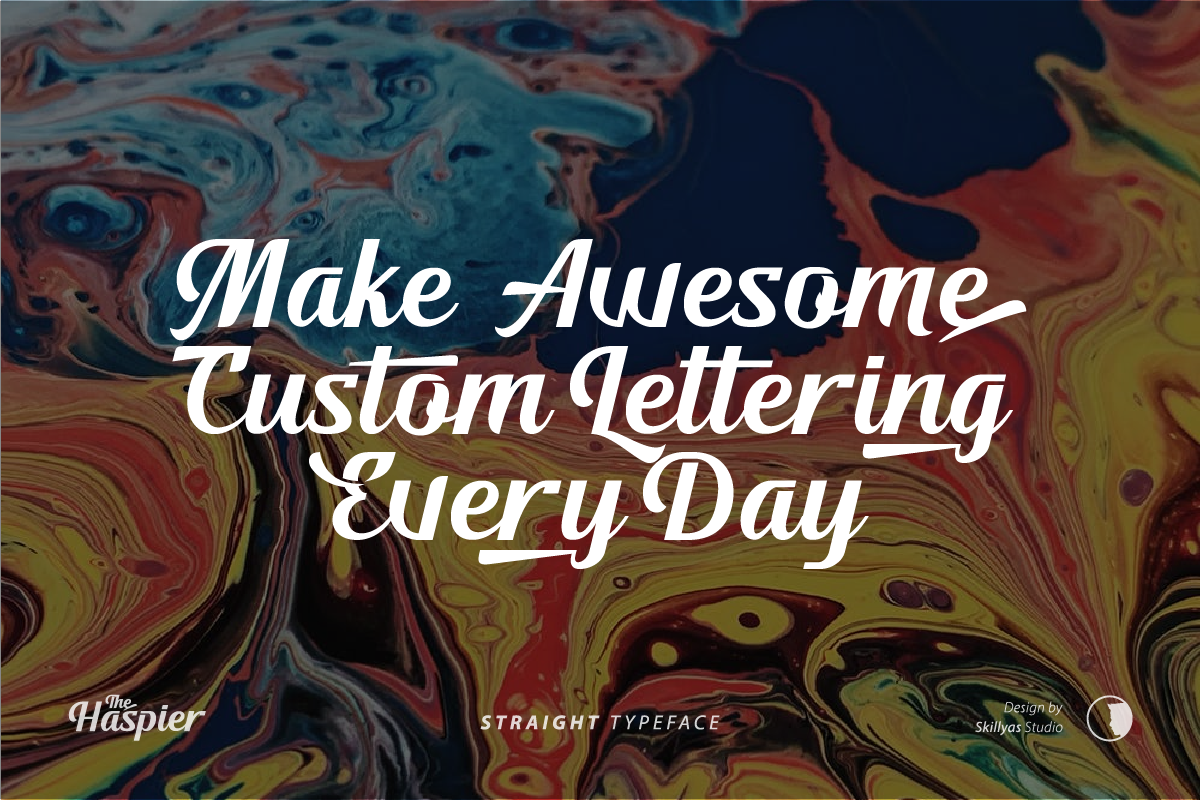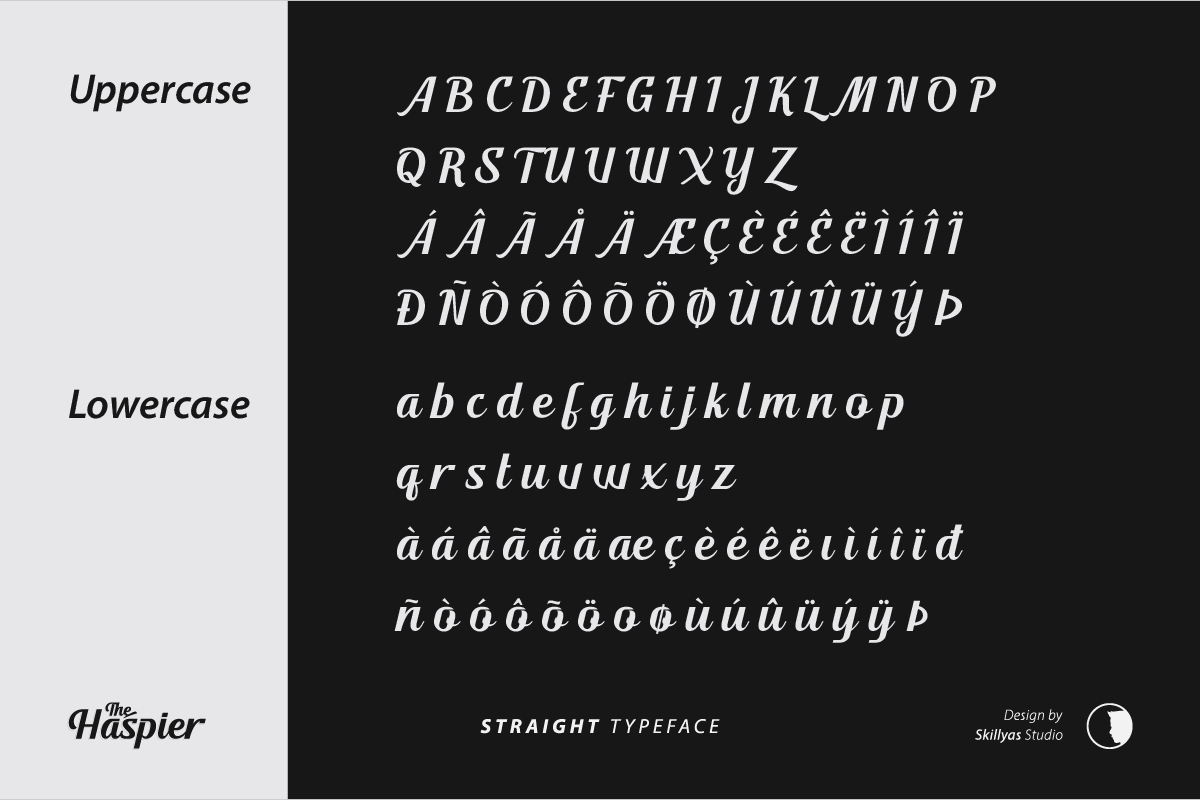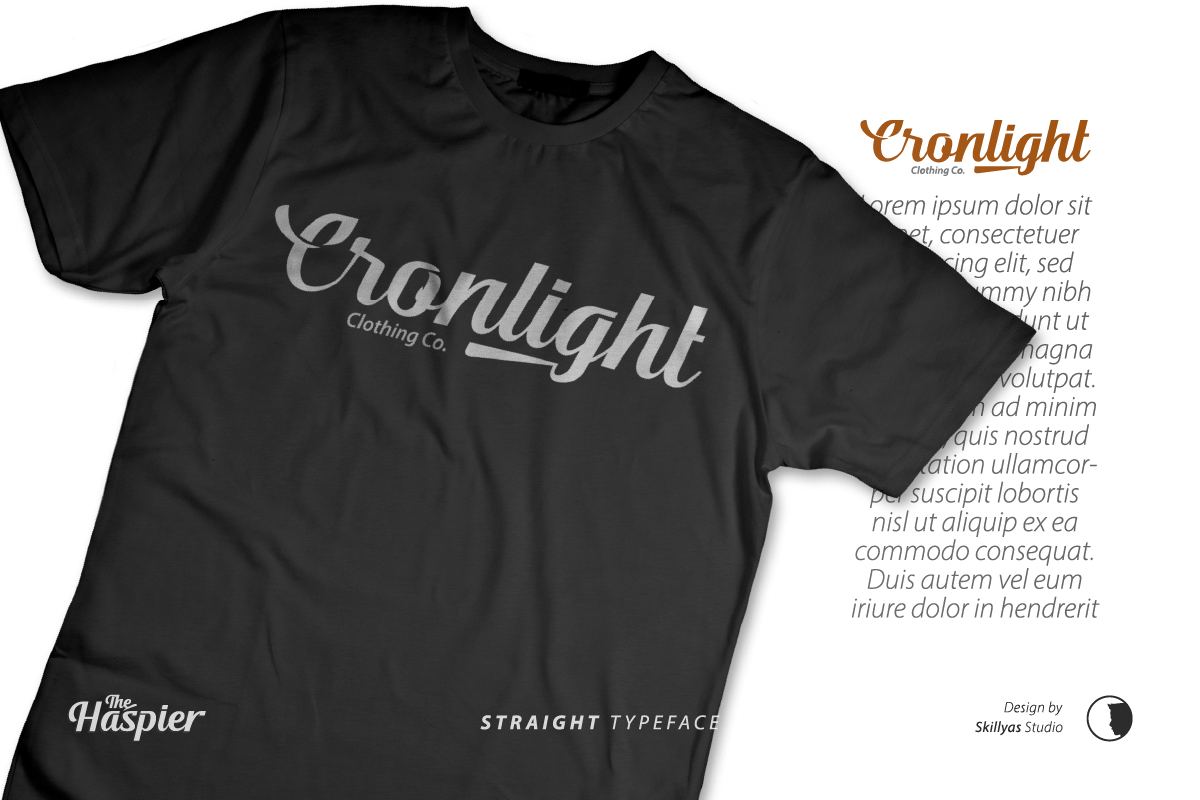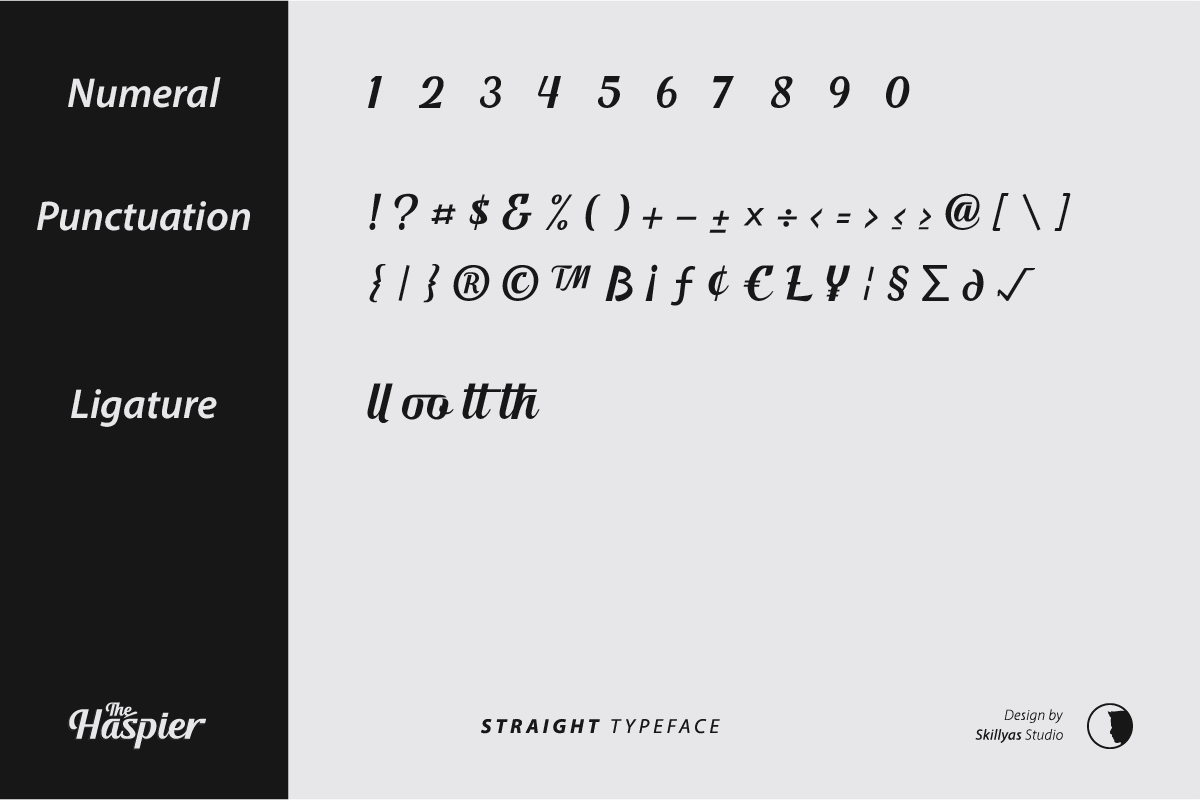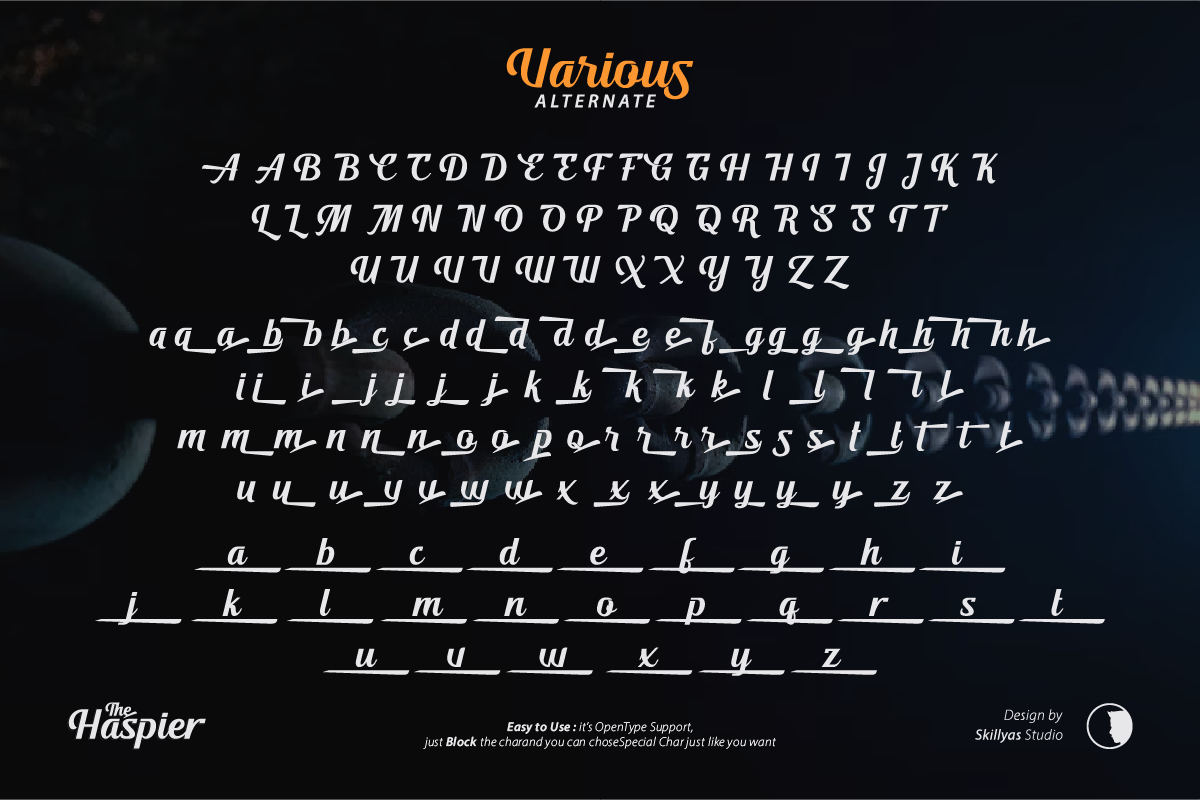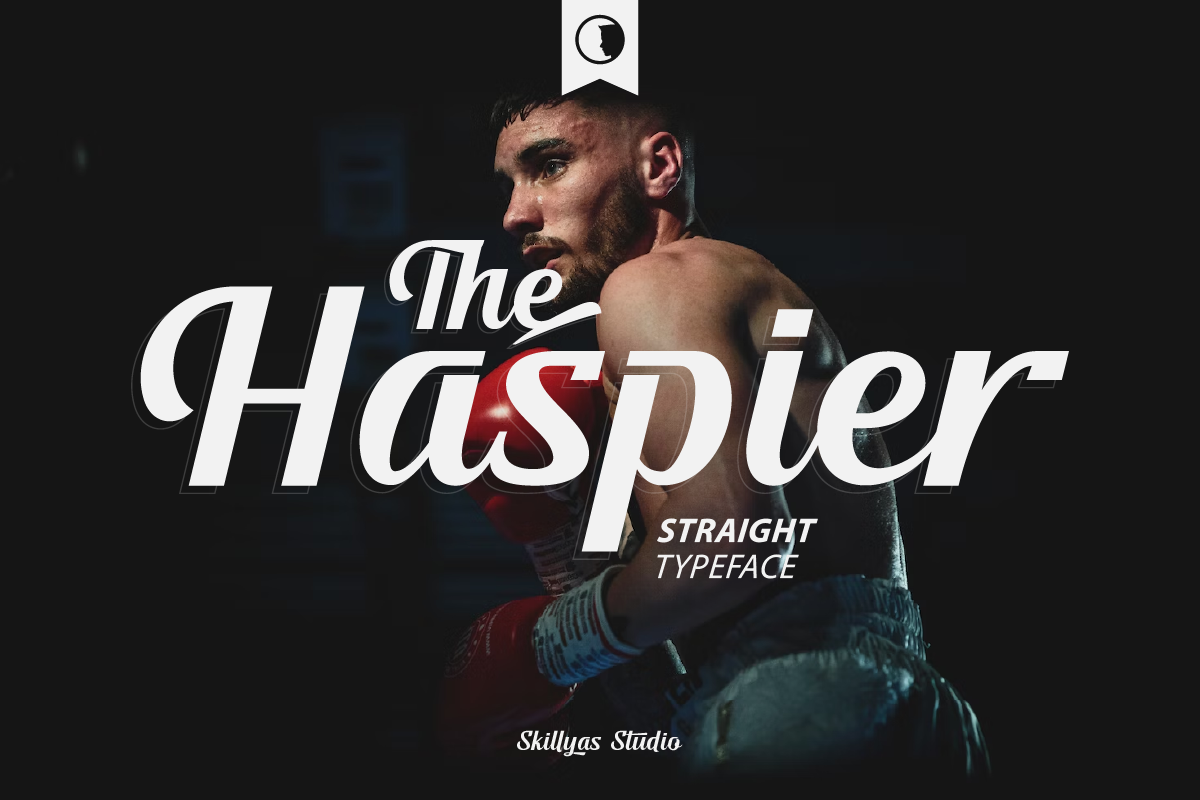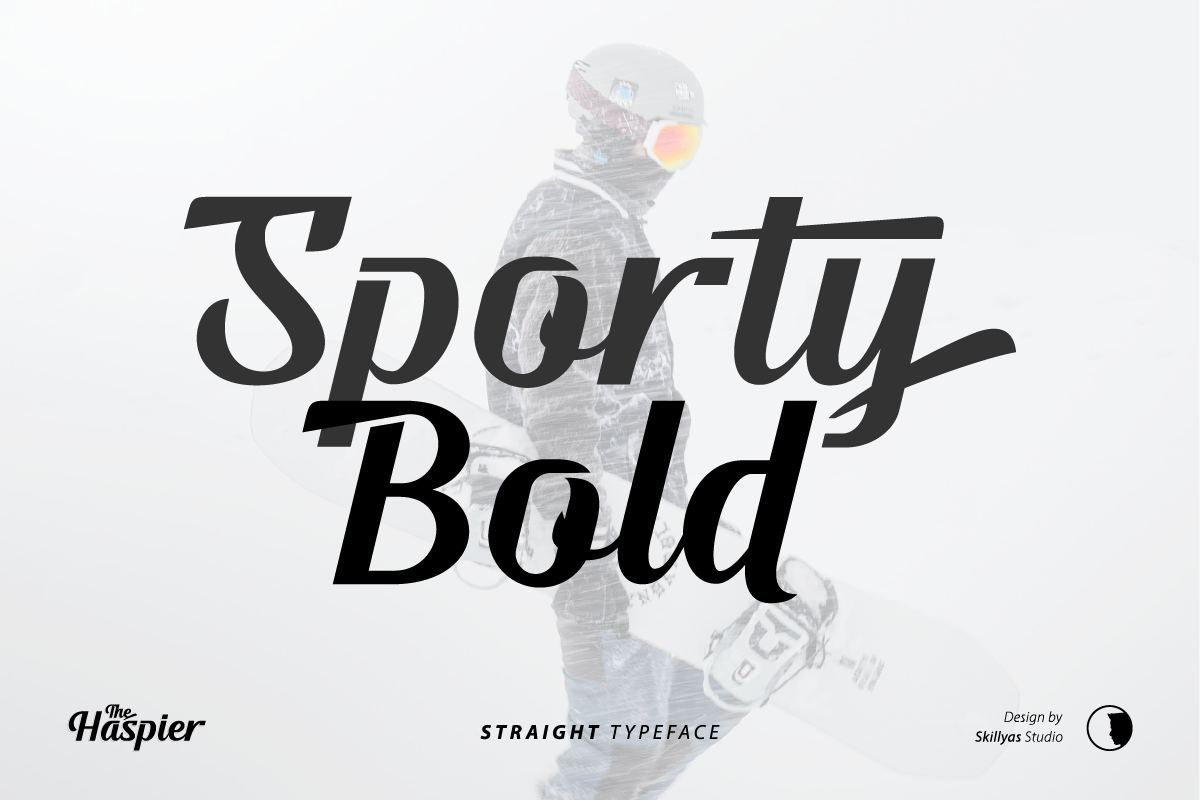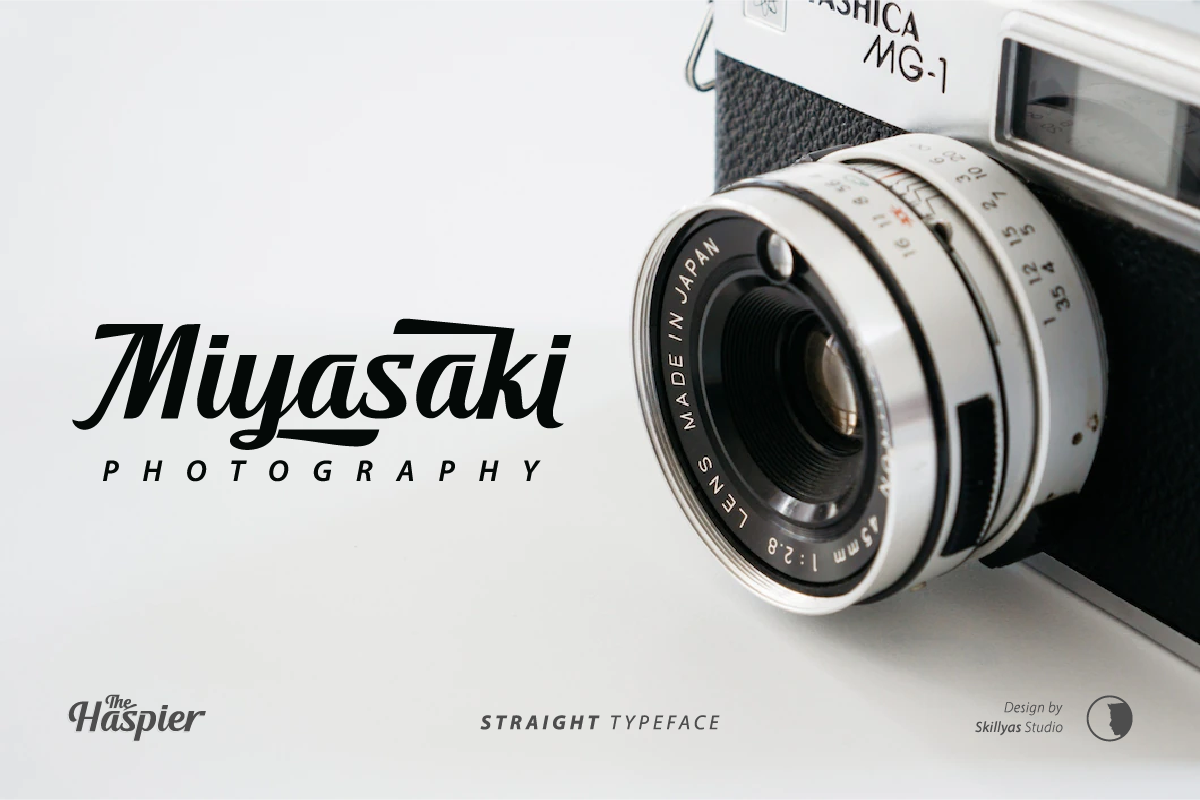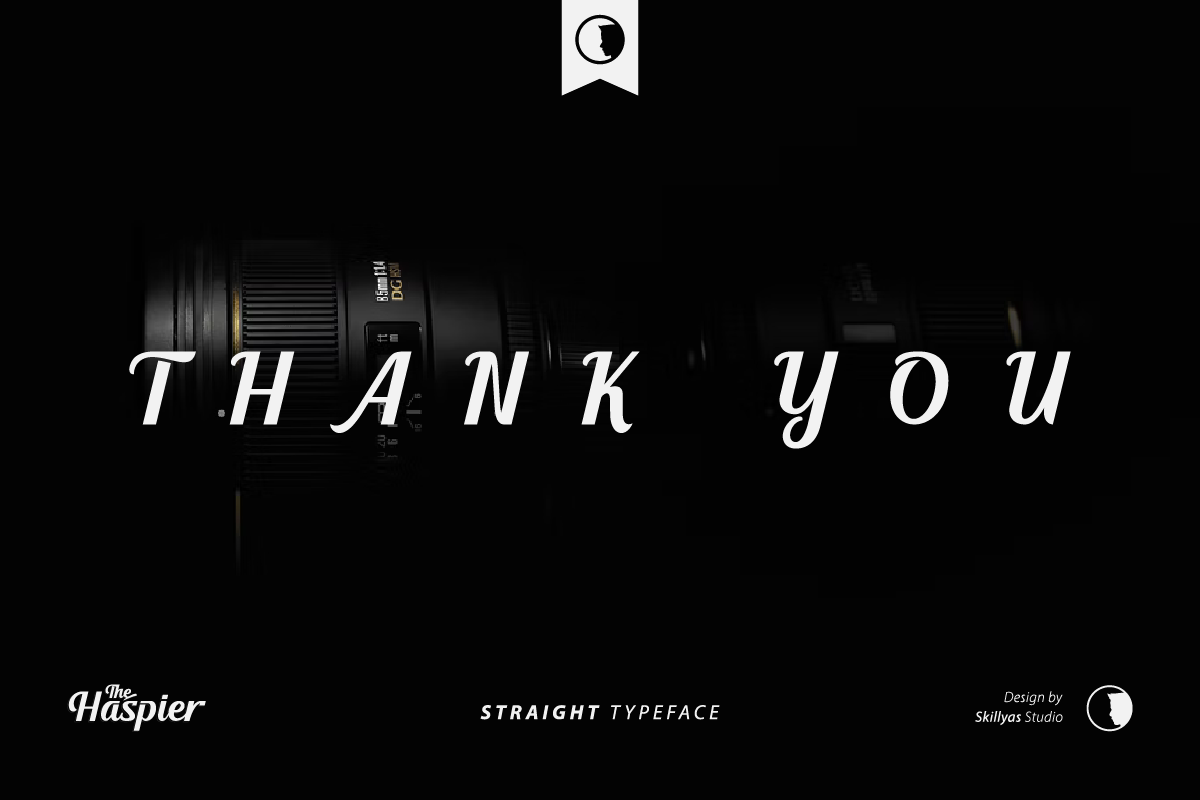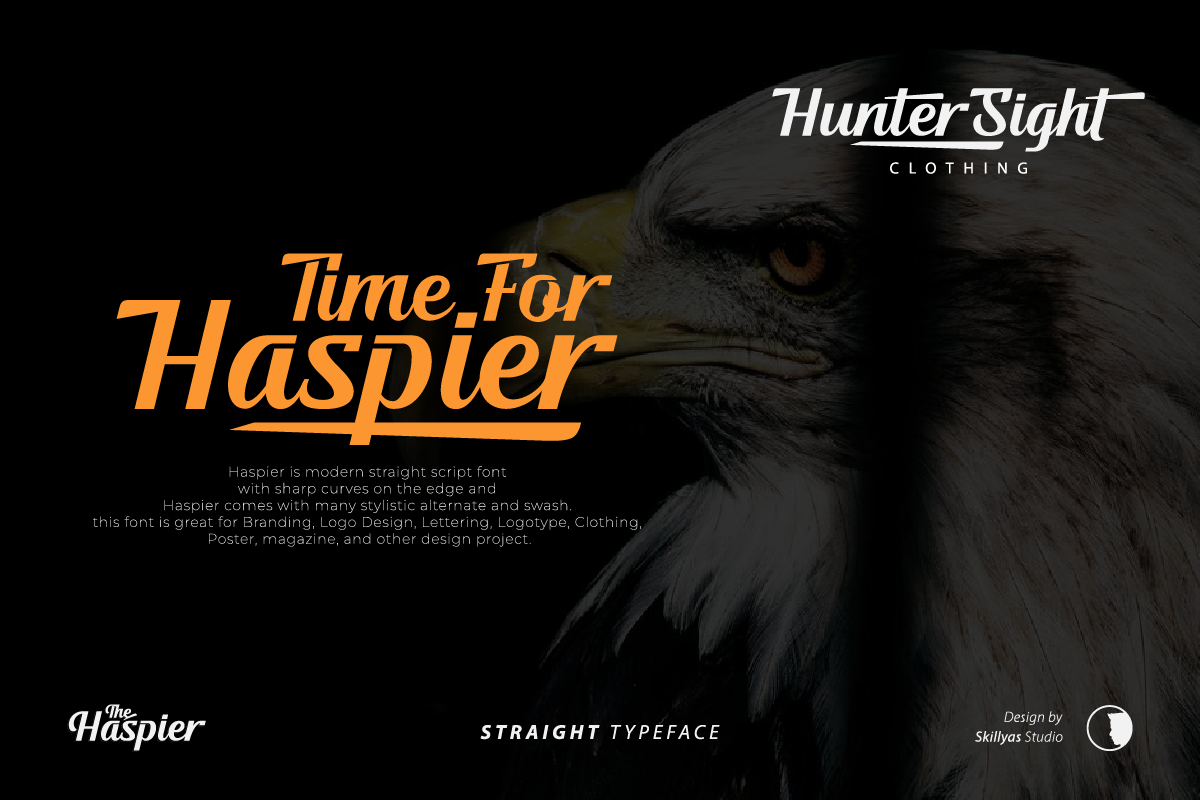
The Haspier Straight Script Font
The Haspier is a Modern sharp bold script. Haspier is handcrafted Carefully with sharp curves on the edge.
this font is great for Branding, Logo Design, Lettering, Logotype, Clothing, Poster, magazine, and another design project.
The Haspier Character Set :
- Uppercase & Lowercase Letters -Punctuation & Symbols Support
- PUA encoded Range Standard Alternative Style
- Standard Ligature